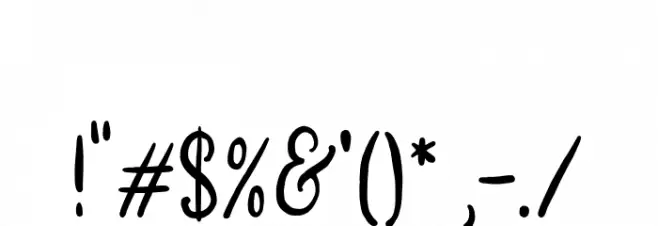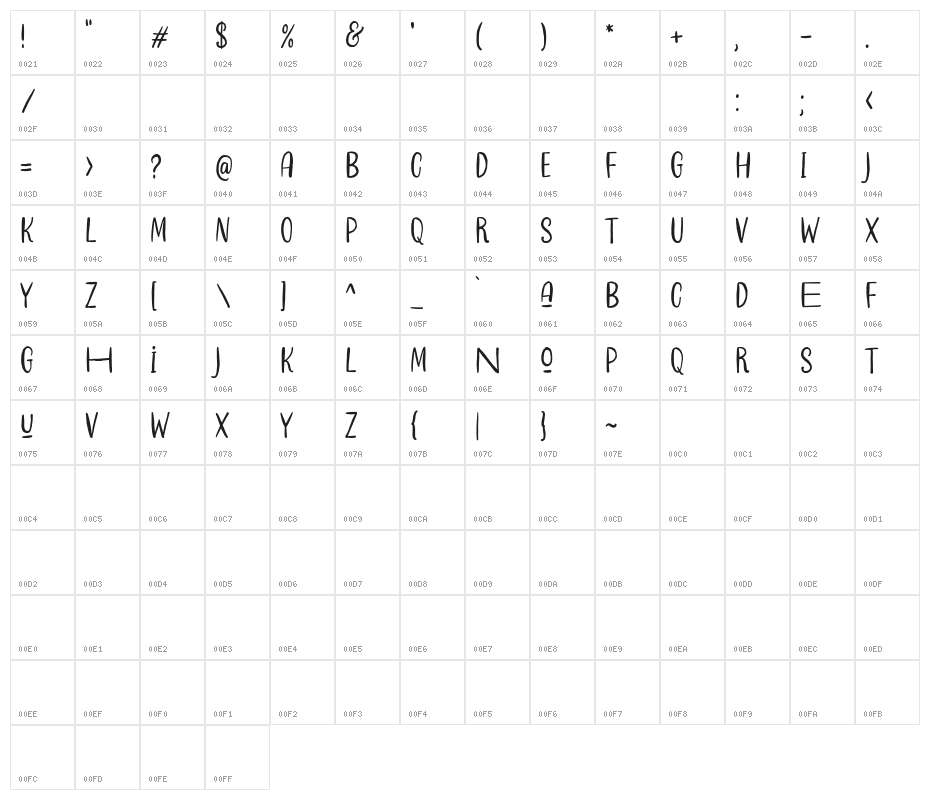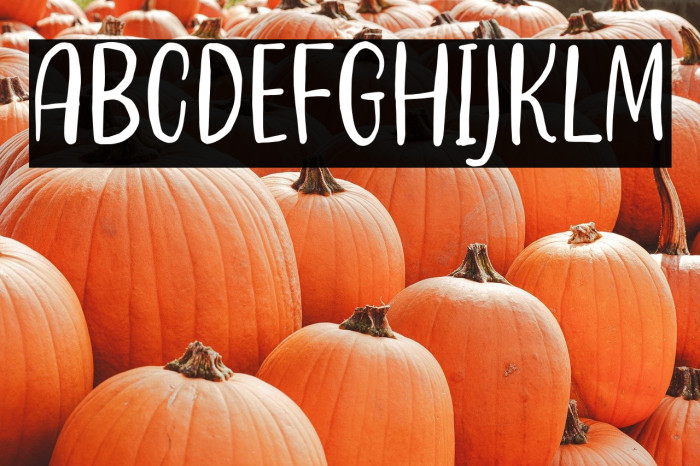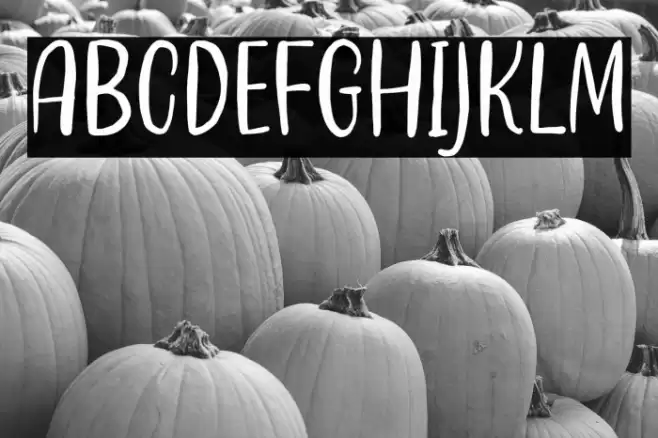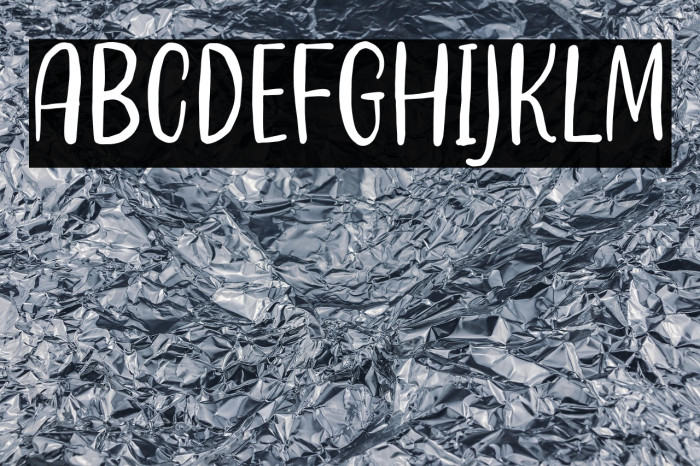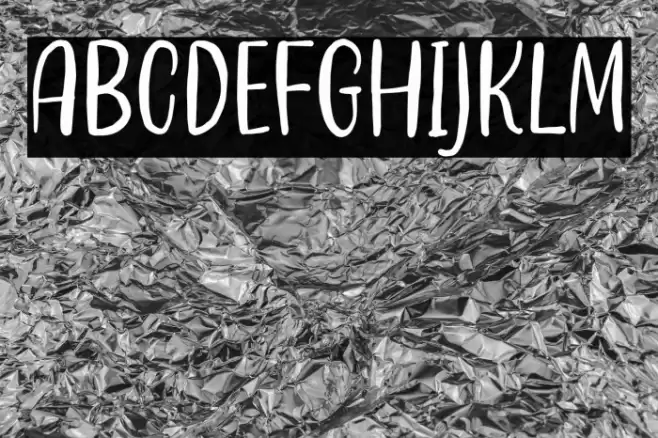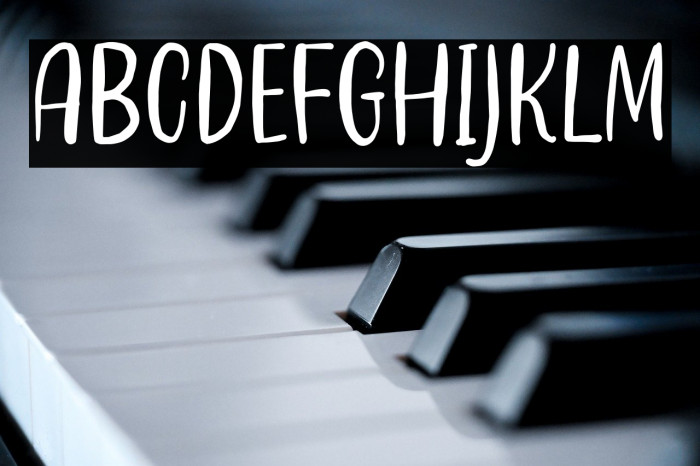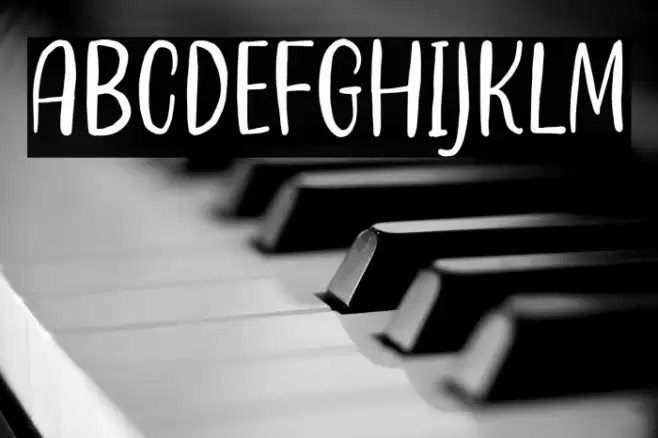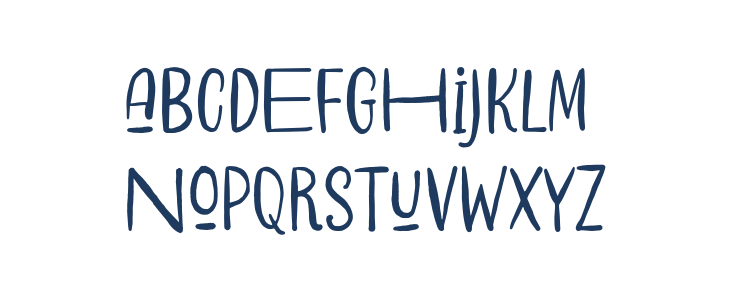
DaisyLovers-Regular Font
DaisyLovers-Regular Description
This playful and whimsical font features a hand-drawn style with irregular, organic shapes that give it a lively and informal appearance. The letters are slightly uneven, adding to the charm and character of the design. The strokes are bold and consistent, providing a strong visual impact. The font includes both uppercase and lowercase letters, as well as a variety of special characters, making it versatile for different design needs. Its unique style is reminiscent of casual handwriting, perfect for projects that require a personal touch.
| Proposed Projects | Ideal for greeting cards, children's books, playful branding, and creative posters. |